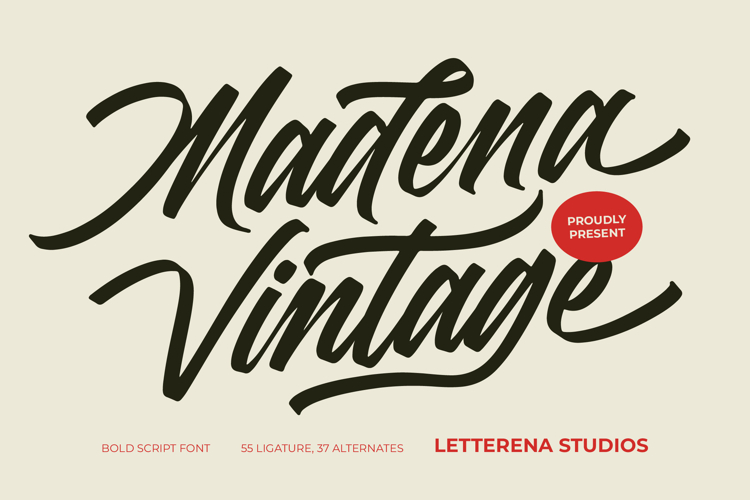
Madena Vintage Bold Script Font
Madena Vintage - Bold Script Font , from Letterena, is a Luxury Script font, suitable for any projects such as: logos, branding projects, homeware designs, product packaging, mugs, quotes, posters, shopping bags, t-shirts, book covers, name card, invitation cards, greeting cards, label, photography, watermark, special events, and all your other luxury and beautiful projects that need a Luxury Script taste.
55 Ligature 37 Alternate & Swashes